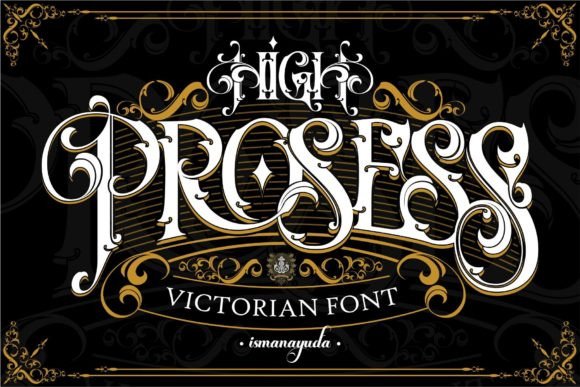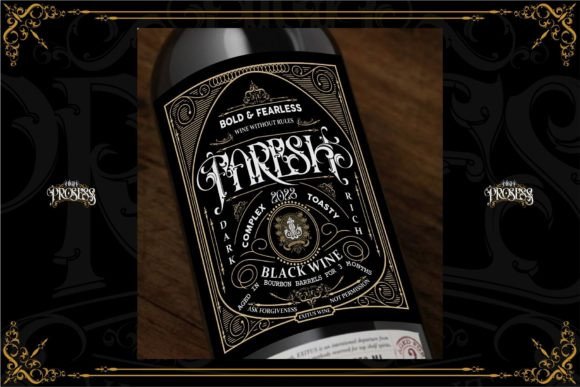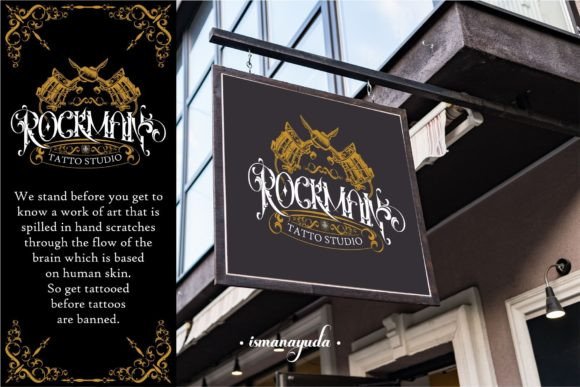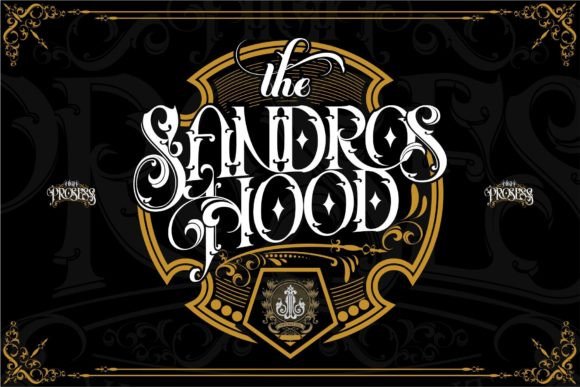
High Prosess Font: Vintage Blackletter for Creative Logo Design
About the High Prosess Font
Welcome to the world of High Prosess Font, a typeface that will inspire your next great project. High Prosess is a bold and thick lettered blackletter font. Add it confidently to your
projects, and you will love the results.
High Prosess excels in headlines, logos, and short, impactful statements where its bold presence commands attention. It’s ideal for branding projects aiming for a strong, authoritative feel, or packaging that needs to stand out on the shelf. Avoid using it for body text or lengthy paragraphs; its weight and density make it difficult to read at smaller sizes.
The font’s core personality is bold and commanding, conveying confidence and a touch of vintage flair. To soften its impact and increase readability in designs that incorporate both display and body text, consider pairing it with a clean sans-serif like Open Sans or a neutral serif like Lora. For a more modern and edgy aesthetic, geometric sans-serifs such as Futura or a slightly condensed version of Helvetica Neue provide a strong contrast.
High Prosess Font Example